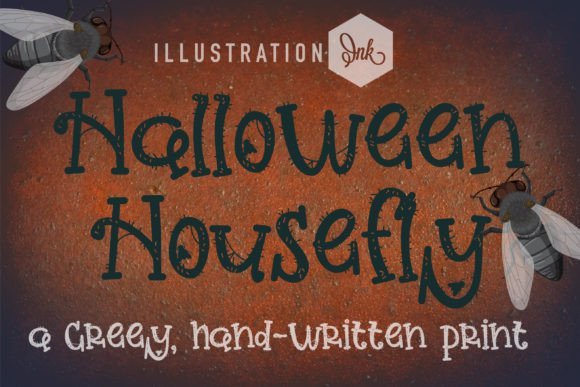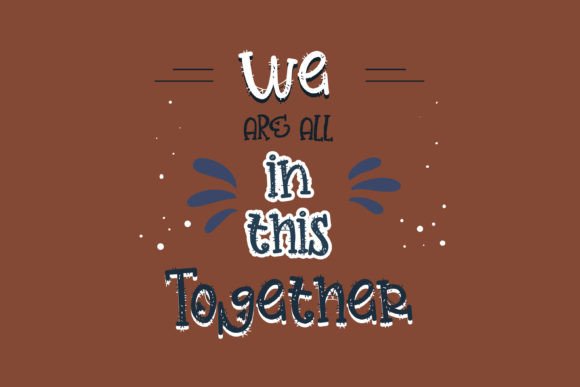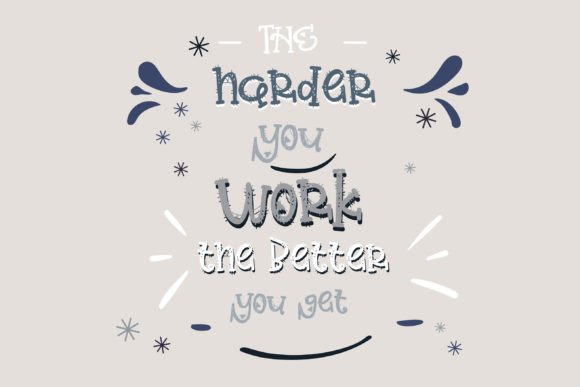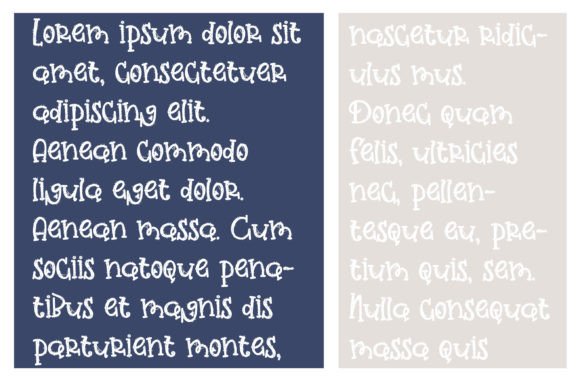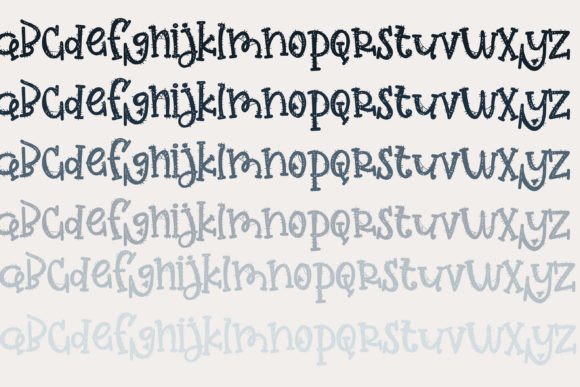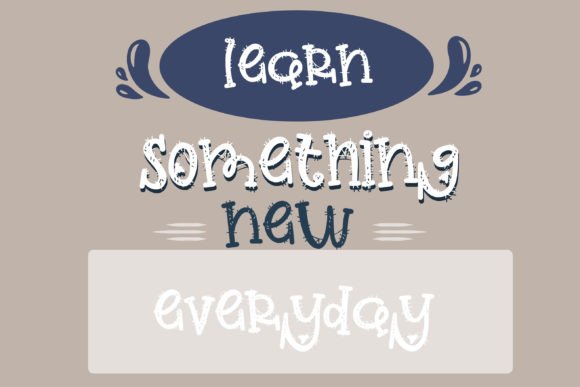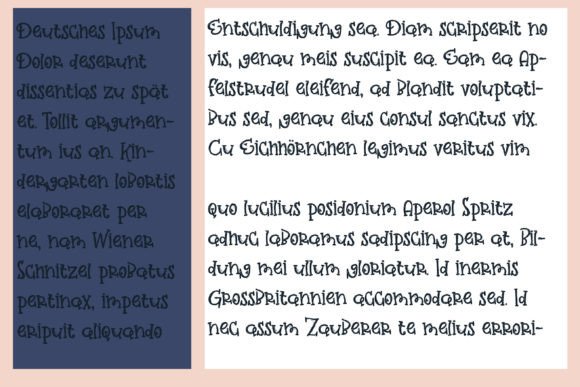
A Spooky Twist on Handwritten Fonts
As I sat hunched over my desk, staring at a blank sheet of paper, I found myself lost in a sea of creative possibilities. The clock struck midnight, and the only sound was the faint hum of my computer. It was then that I stumbled upon the perfect font to capture the essence of Halloween – the Halloween Housefly Font.
This hand-crafted font is a masterclass in spooky charm, featuring intricate details of houseflies, webbing, and short, prickly hairs. It’s perfect for designers looking to add a touch of macabre whimsy to their projects. Whether you’re crafting invitations, greeting cards, or other items, this font is sure to set the tone for a hauntingly beautiful design.
For designers, the Halloween Housefly Font is a valuable addition to their toolkit, offering a unique and eye-catching way to express their creativity. Its hand-crafted nature adds a touch of warmth and personality, making it a standout choice for any project.
Halloween Housefly Font Key Features
- Font Style: A spooky, hand-drawn font with a fly theme, perfect for Halloween and horror-themed designs.
- Character Count: 248 unique characters, including uppercase and lowercase letters, numbers, and special characters.
- Unique Characteristics: The font features a unique, hand-drawn style with intricate details, giving it a spooky and eerie feel.
Halloween Housefly Font Review
Overall, I think the Halloween Housefly Font is a fun and quirky addition to any spooky-themed project. ✨ The font’s unique design, with its distressed and decaying aesthetic, really captures the essence of Halloween. The designer has done a great job of creating a font that’s both creepy and charming at the same time.
- The font’s bold and striking letters are perfect for creating eye-catching headlines.
- The distressed texture adds a level of realism that’s hard to find in other fonts.
- The font is highly customizable, making it easy to adjust to your specific design needs.
- The font may be too bold for smaller text, making it difficult to read.
- The distressed texture can sometimes be distracting, especially in longer blocks of text.
- The font may not be suitable for all types of projects, especially those that require a more professional or elegant look.
Overall, I would recommend the Halloween Housefly Font for anyone looking to add a touch of Halloween magic to their project. Just be aware of its limitations and use it judiciously. ⚠️
The Halloween Housefly Font is perfect for creating spooky and eerie designs, especially around Halloween. Some common use cases include:
- Halloween party invitations
- Spooky-themed posters
- Creepy fonts for horror movies
Remember to experiment with different font sizes, colors, and combinations to get the most out of this unique font.